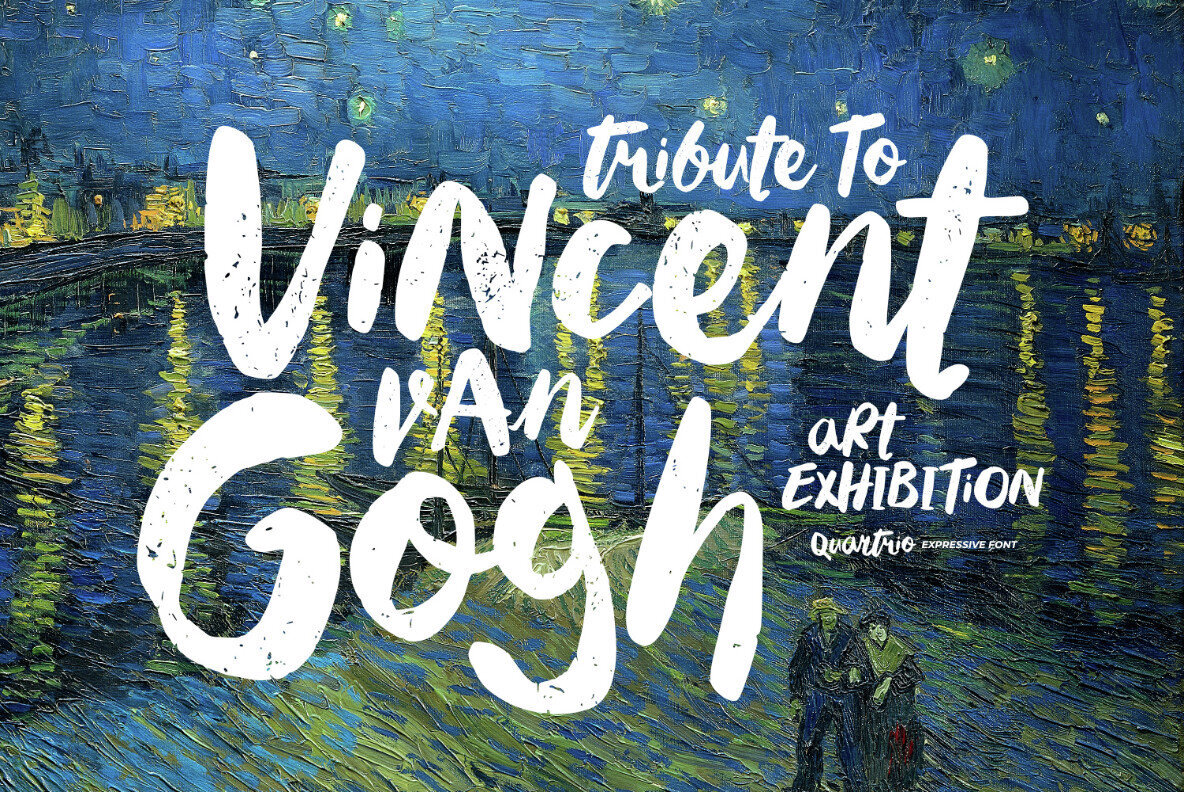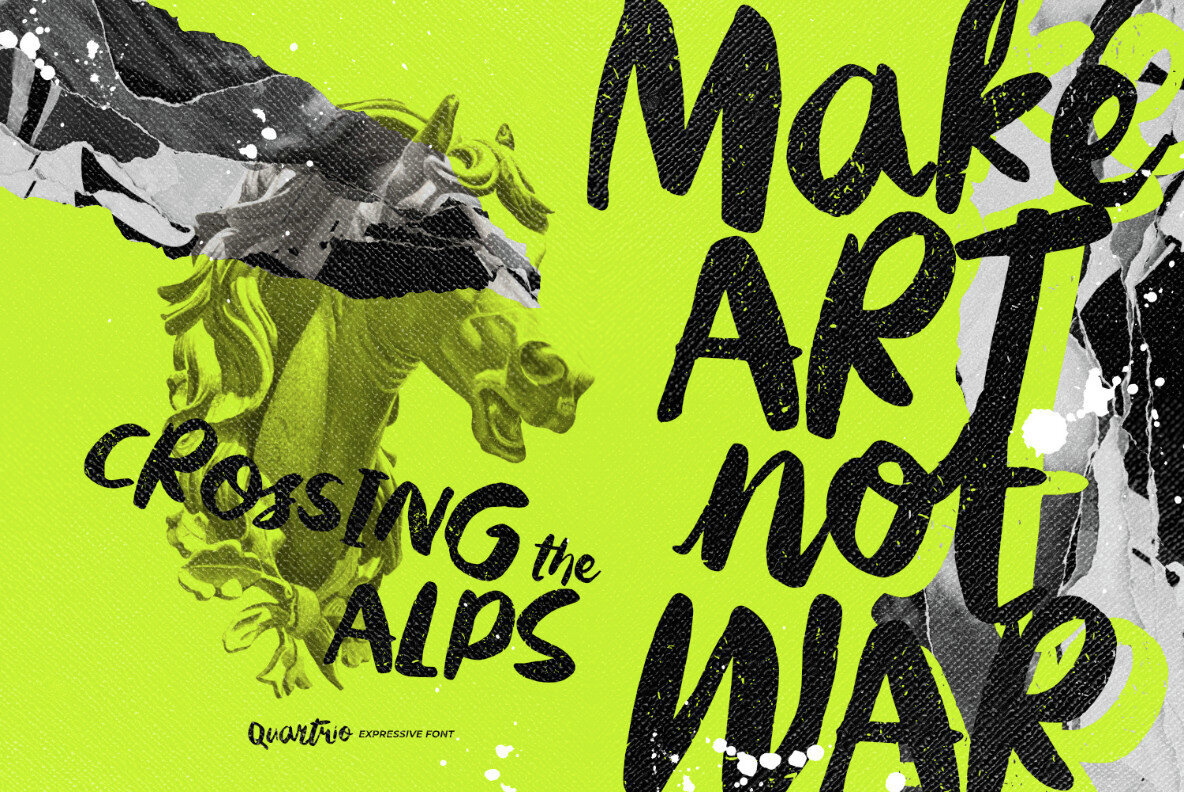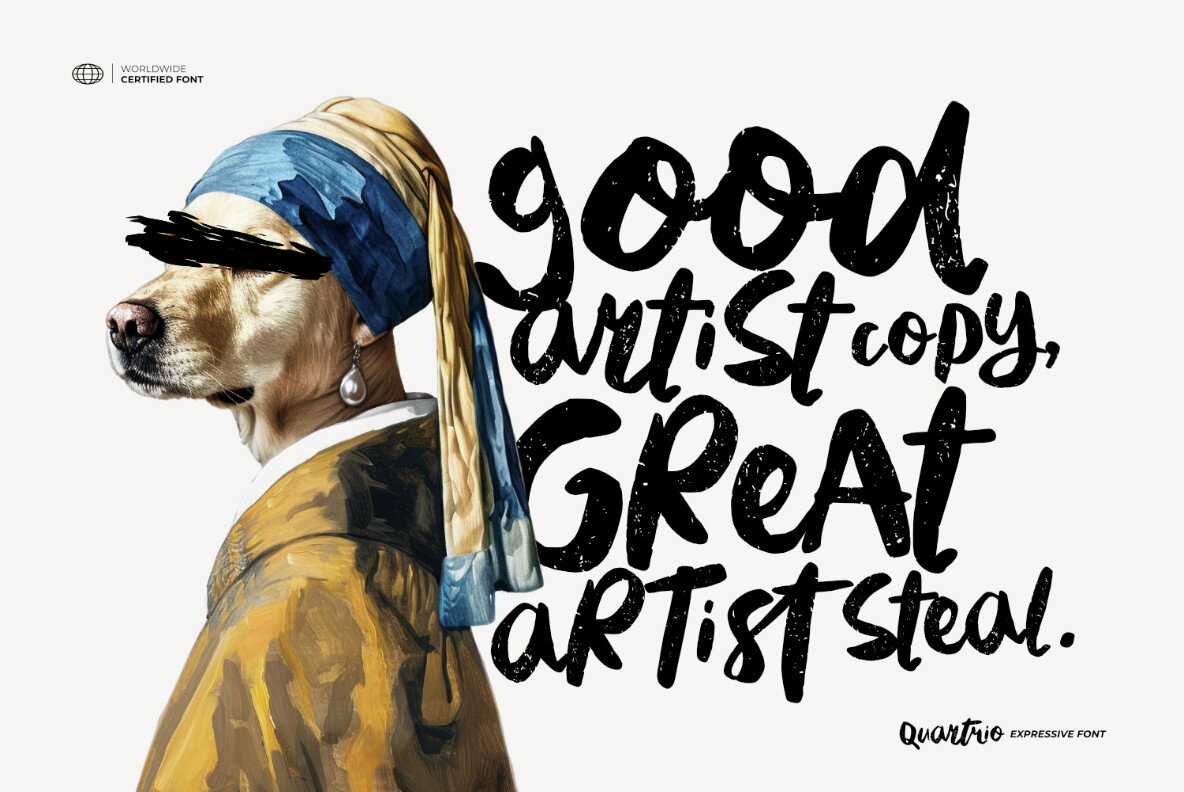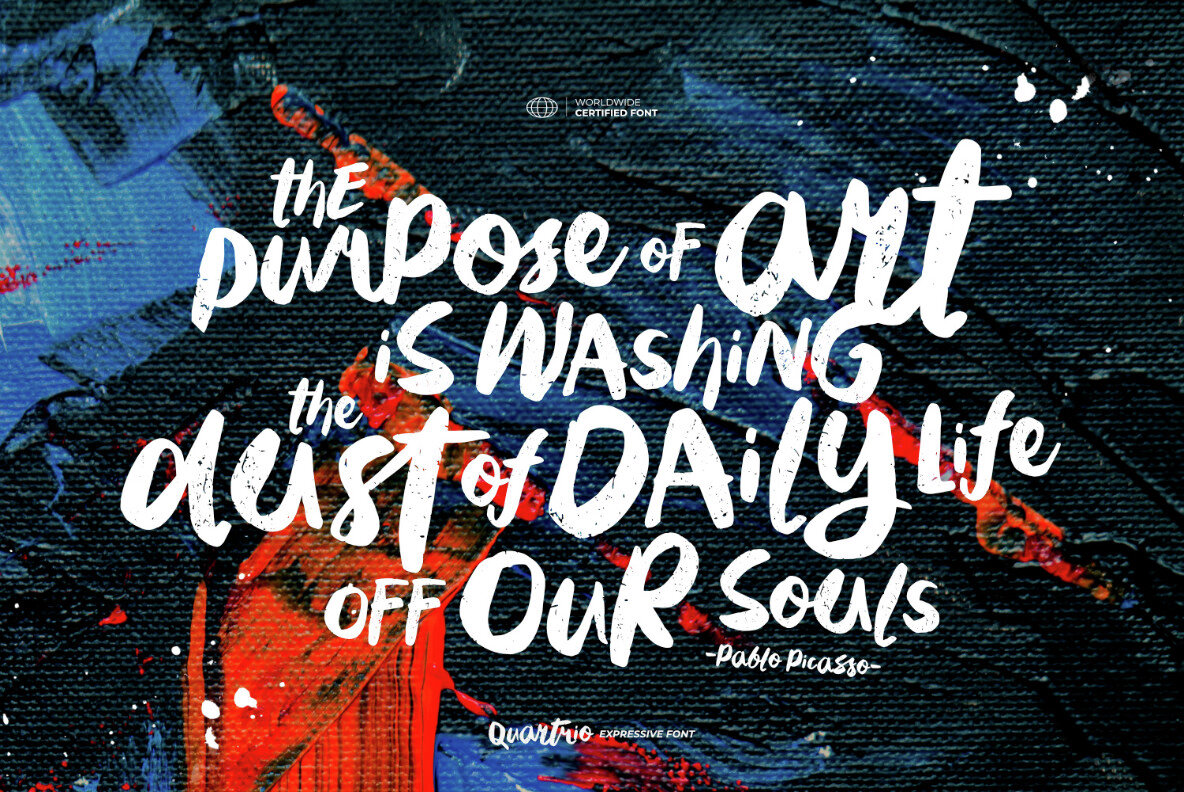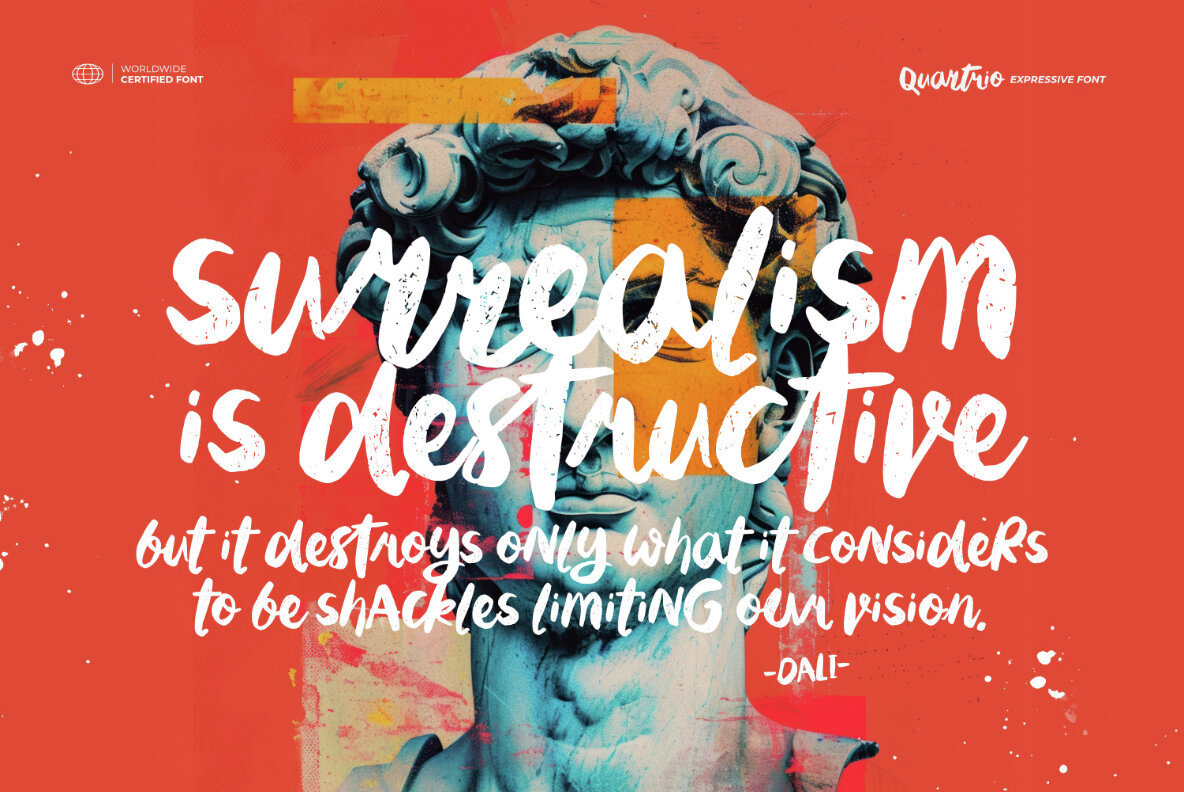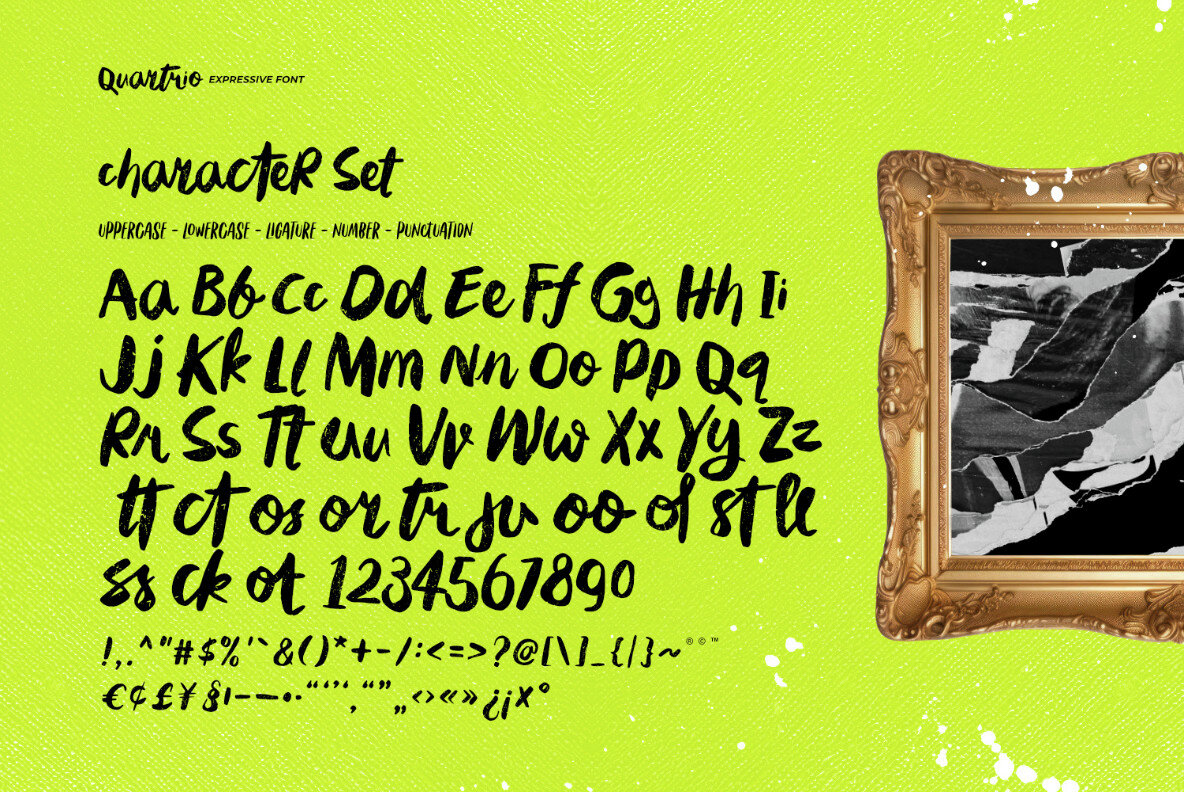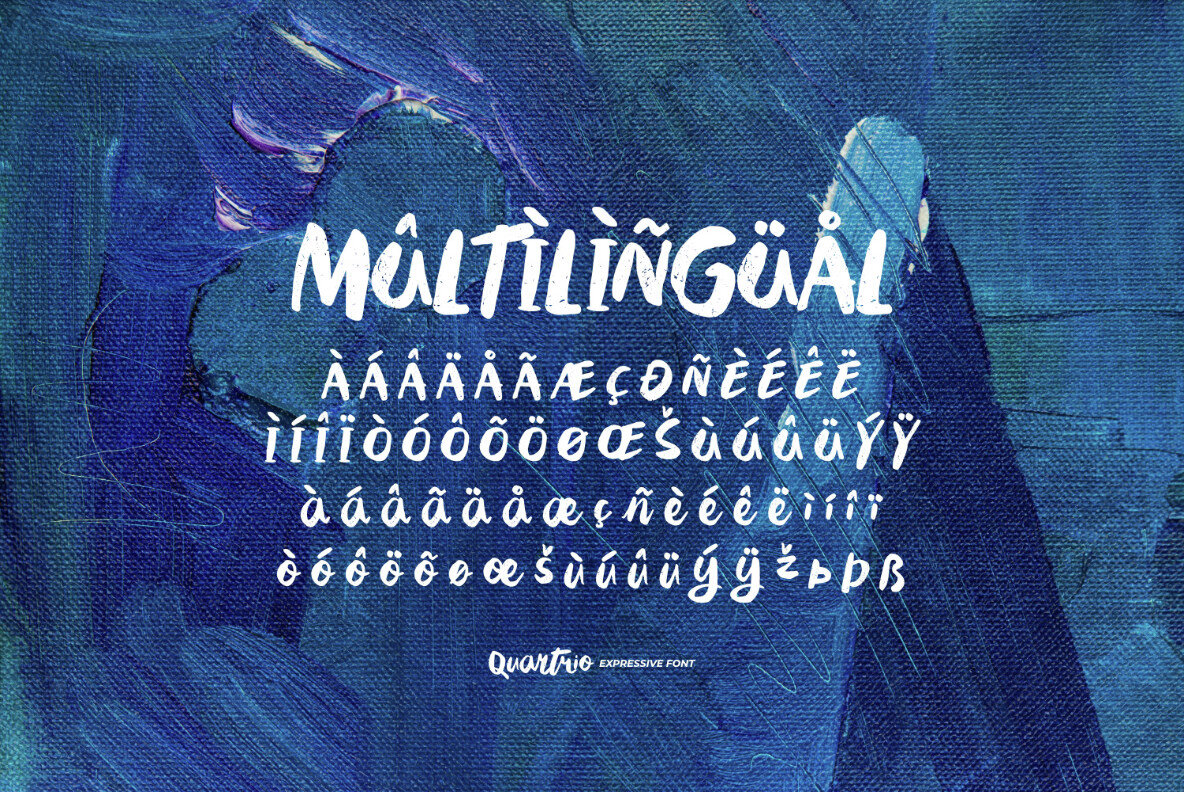
Quartrio Font
Proudly present Quartrio - Expressive Font, created by ikiiko. Quartrio is an expressive and artsy font that embodies the raw beauty of hand-drawn lettering. This font has a unique, personal flair that resonates with the essence of natural, hand-crafted design. Crafted with rough, brush-like strokes, this font exudes a natural, organic feel, perfect for projects that aim to stand out with an authentic and creative edge. Each letter in Quartrio is meticulously designed to showcase the spontaneity and fluidity of hand-drawn art, making it an ideal choice for everything from bold posters and eye-catching digital artwork that demands a distinctive, expressive touch. This font is very suitable for making a art exhibition design, cultural event, poster event, book cover, movie title, magazine layout, packaging, food & beverages, quotes, or simply as a stylish text overlay to any background image. What's Included?